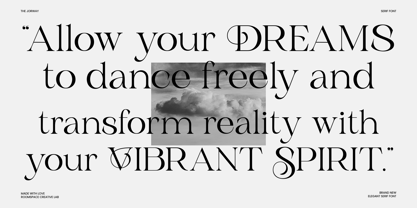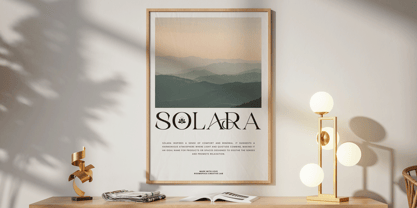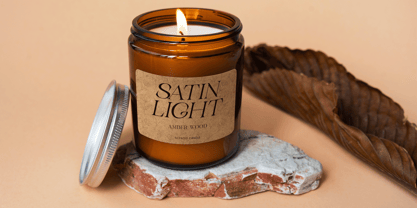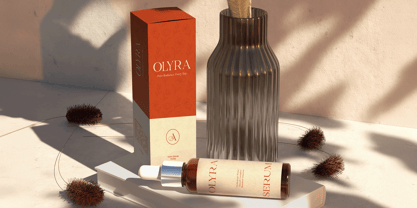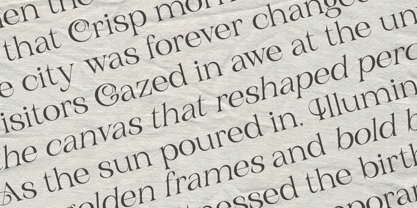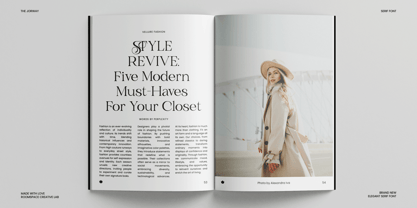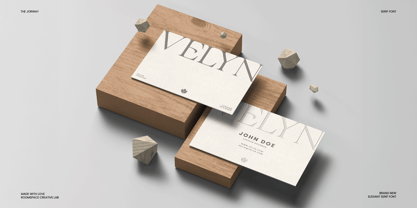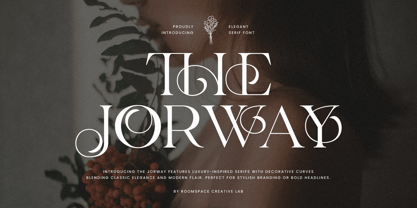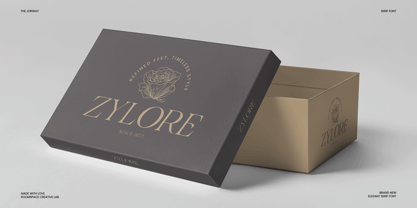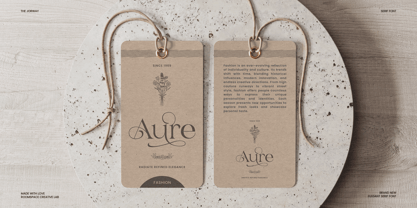
The Jorway
by Jafar07
The The Jorway Font Family was designed by Bakhrudin Ja'far and published by Jafar07. The Jorway contains 2 styles and family package options. More about this family
The Jorwa is a stylish serif font crafted to bring charm and personality to every design. Its decorative strokes and balanced proportions make it versatile for both modern and timeless aesthetics. The Jorway combines artistic curves and refined letterforms to help your words stand out with clarity and confidence. Each character in The Jorway is carefully shaped with distinctive curves, smooth contrast, and elegant ligatures that enhance visual flow. Designed with attention to detail, it delivers excellent readability and a distinct voice whether used for bold headlines or subtle body text. This serif is ideal for designers seeking a polished yet creative tone. Perfect for branding, logo design, magazines, packaging, and editorial layouts, The Jorway adapts easily to both digital and print use. It gives your design an expressive and memorable touch that feels professional yet artistic.
Designers: Bakhrudin Ja'far
Foundry: Jafar07